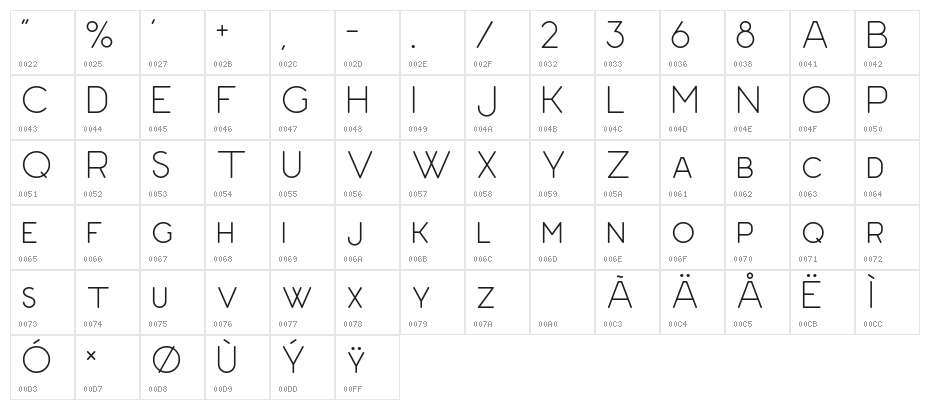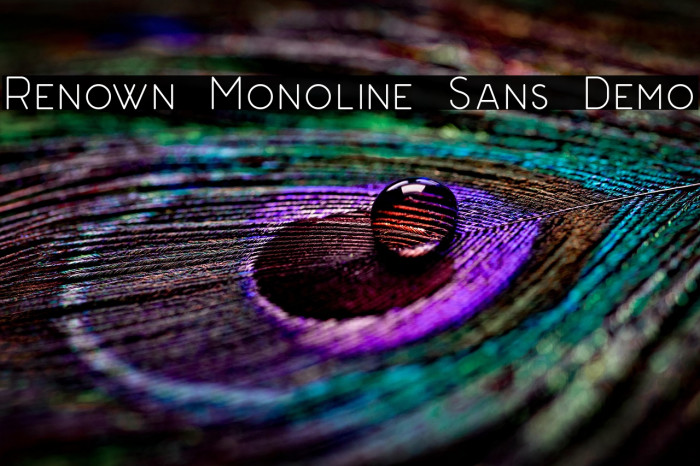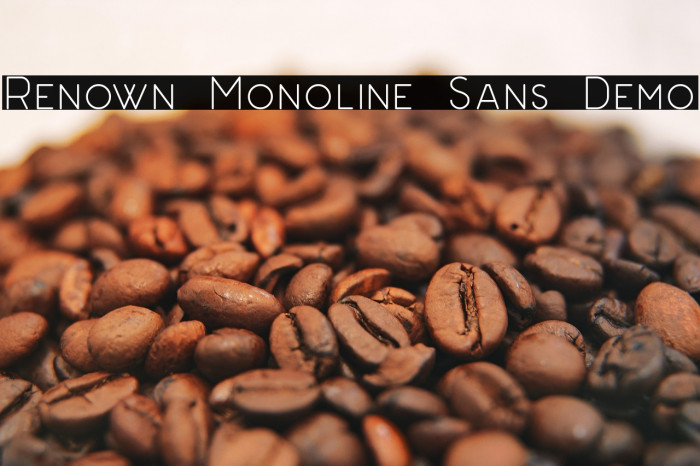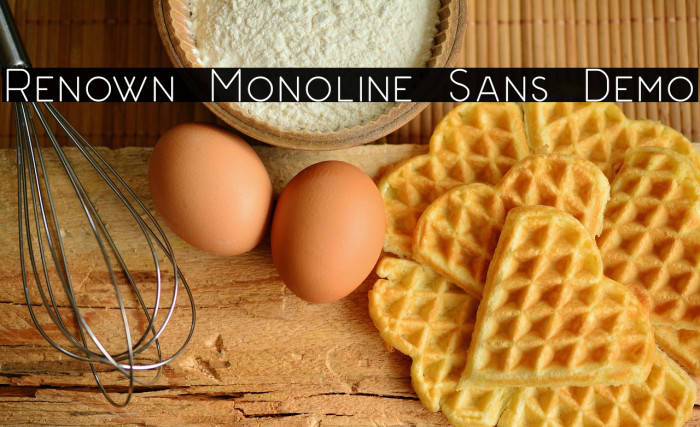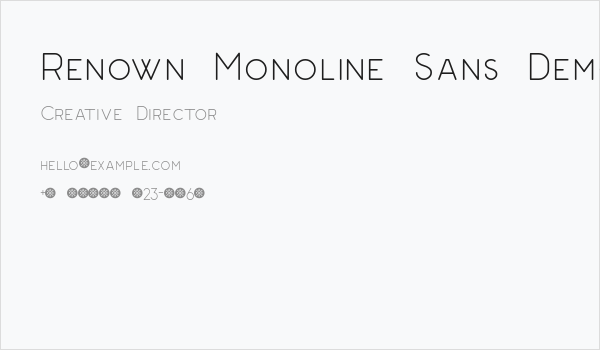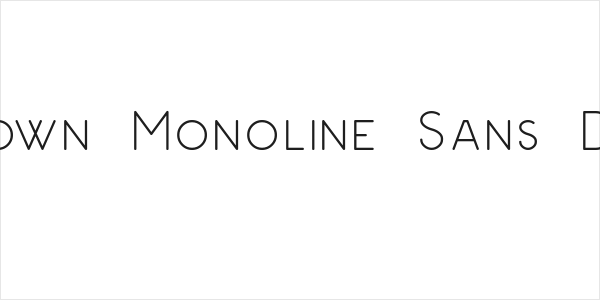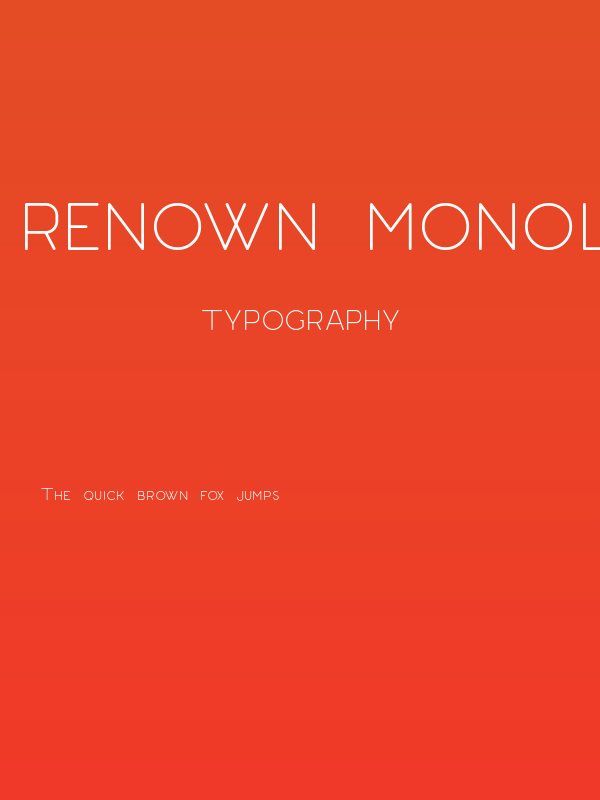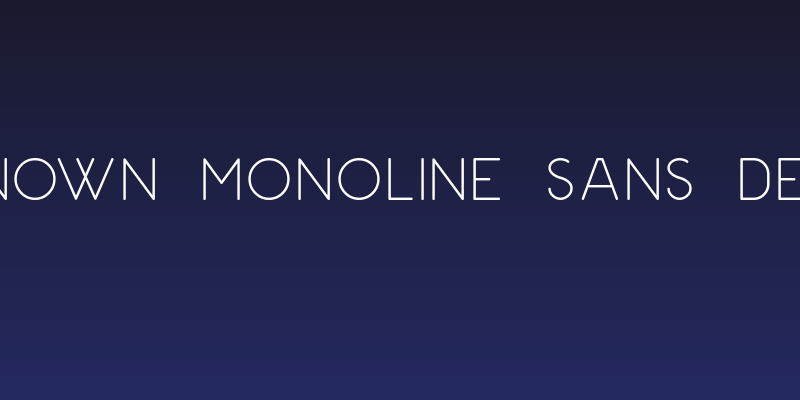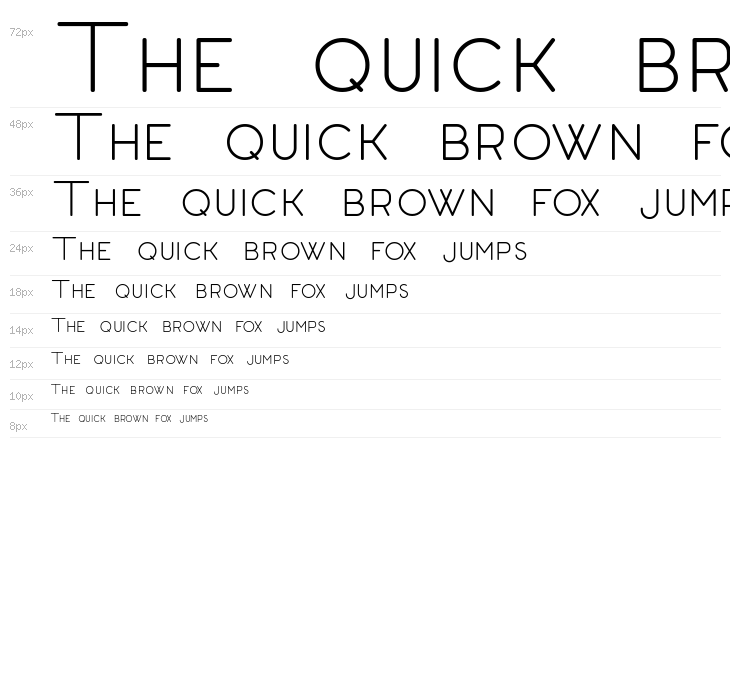
Renown Monoline Sans Demo Font
Renown Monoline Sans Demo Description
This font features a clean, minimalist design with a monolinear structure, meaning all strokes have a consistent thickness. The characters are well-spaced, providing a modern and airy feel. The uppercase and lowercase letters are crafted with precision, showcasing a geometric influence that enhances readability. The numerals and special characters maintain the same monolinear style, ensuring uniformity across all text elements. This font's simplicity and elegance make it versatile for various design applications.